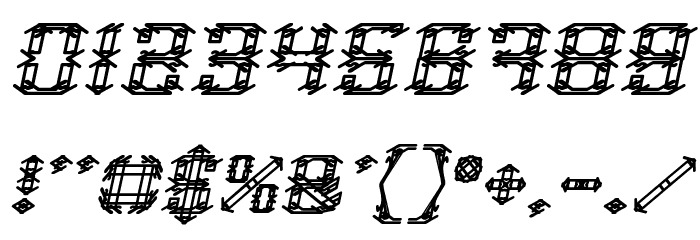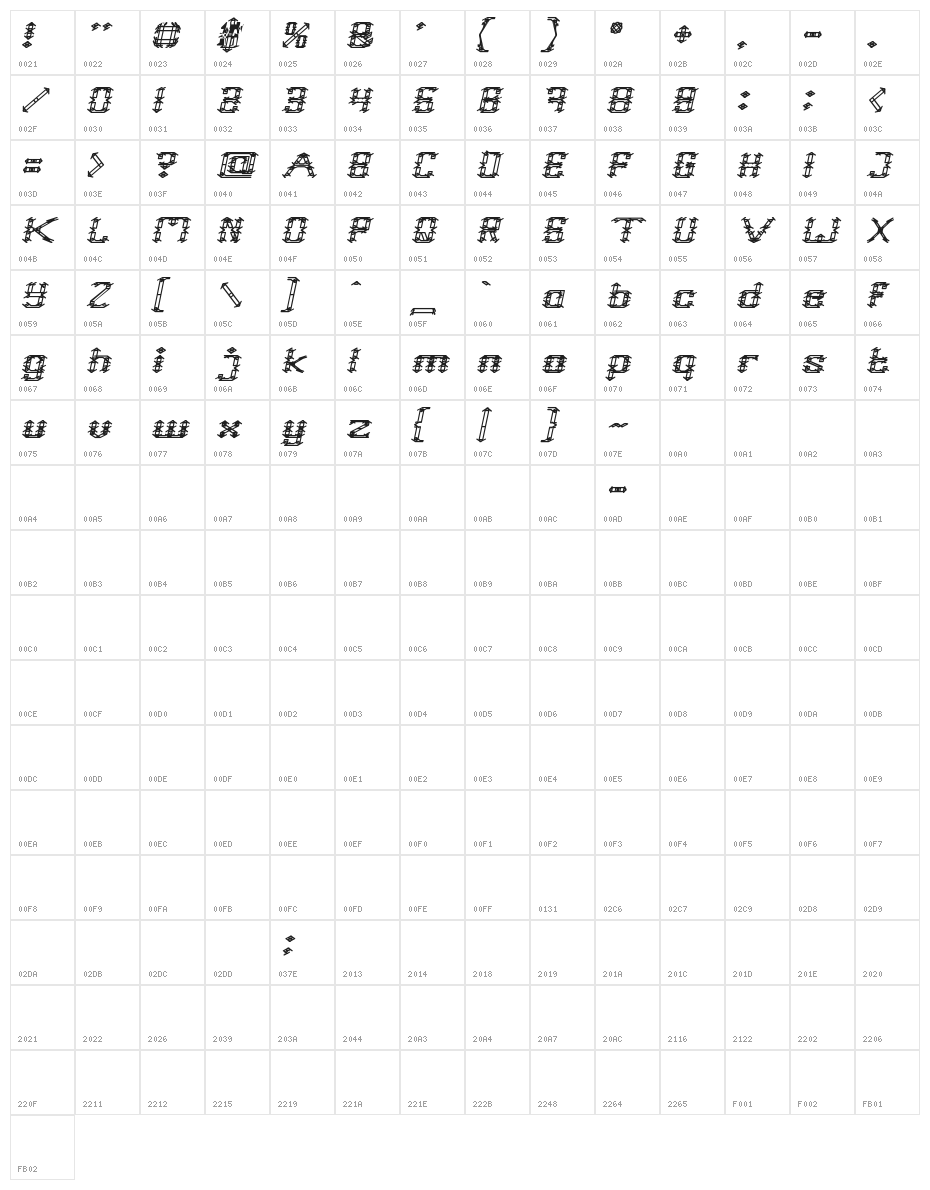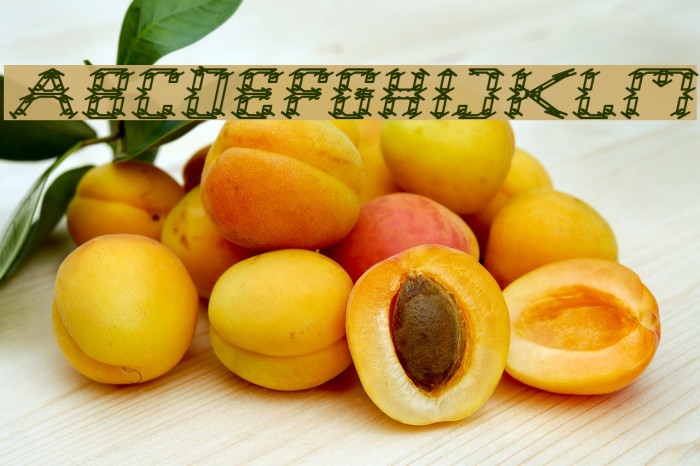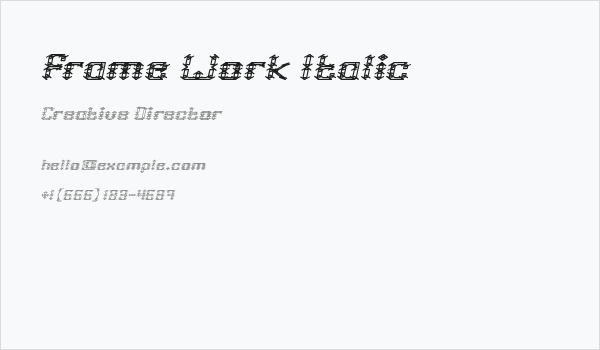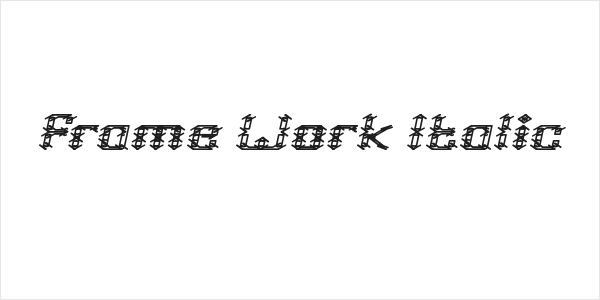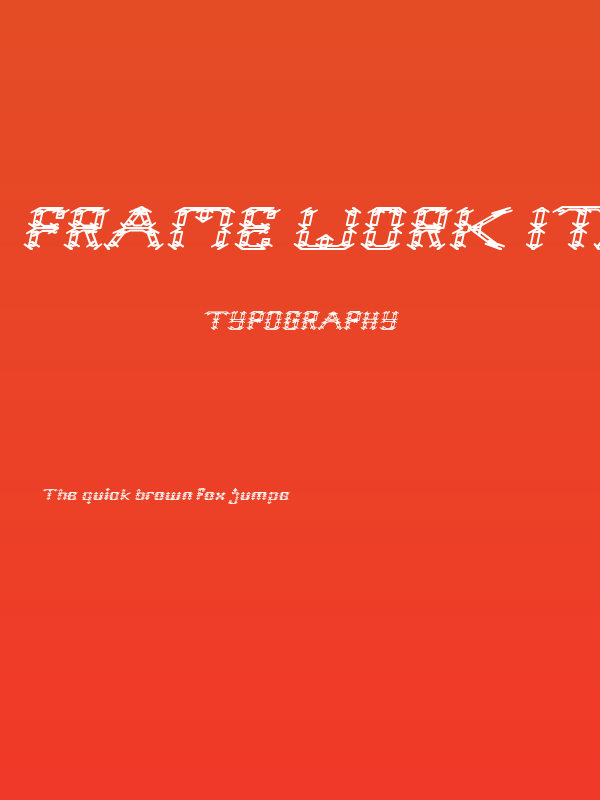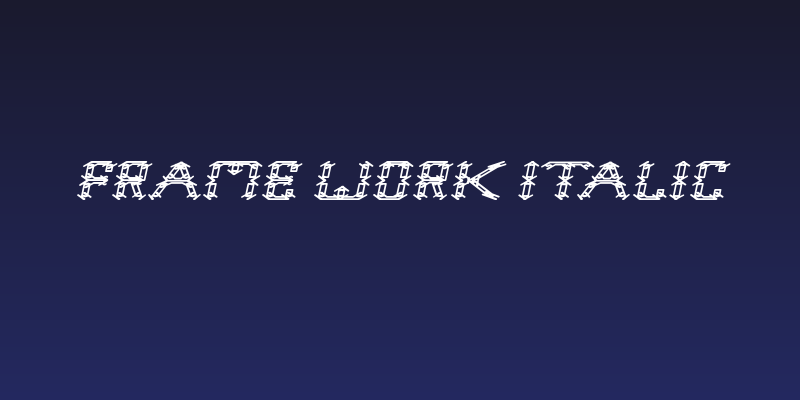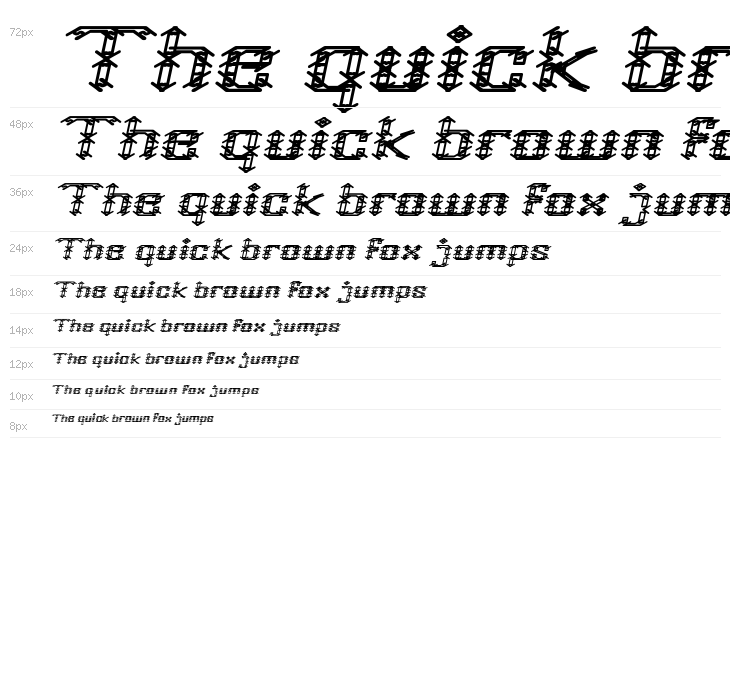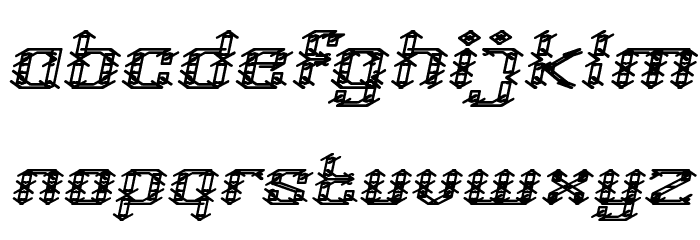
Frame Work Italic Font
Frame Work Italic Description
This font features a unique, intricate design with a framework-like structure that gives it a mechanical and industrial feel. The characters are composed of bold, angular lines with a consistent pattern that resembles a lattice or scaffolding. This design creates a striking visual effect, making it highly decorative and eye-catching. The font maintains a consistent weight throughout, with medium contrast in stroke thickness. The characters are evenly spaced, ensuring readability despite the complex design. This font is ideal for projects that require a bold, statement-making typeface with a modern, edgy aesthetic.
| Overall Style | Modern, Decorative |
| Proposed Projects | Ideal for branding, posters, album covers, and any project needing a bold, industrial aesthetic. |